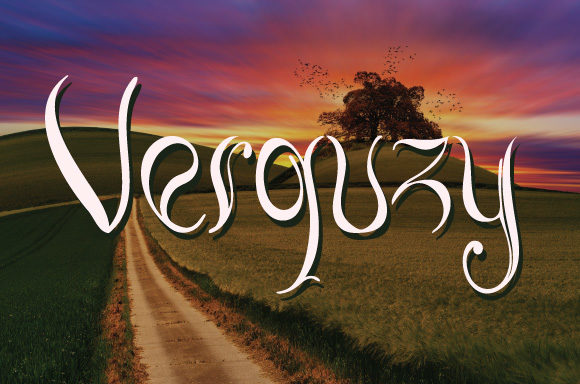
Prepare to turn heads with Verquzy Font, the script font that exudes elegance and originality! Step into the realm of captivating designs and watch your creations bloom with Verquzy's graceful curves and enchanting swashes.
Crafted by the talented Dedi Art Studio, Verquzy is a masterpiece tailored for the art of logo design. Its enchanting essence breathes life into your branding, making every letter dance with a captivating allure. Be it a sophisticated logo or an inspiring quote, Verquzy empowers you to make a lasting impression.
Immerse yourself in the beauty of each stroke, where precision meets artistry. Verquzy's delicate touch adds a touch of magic to your designs, making them shine brighter than ever before. Let your imagination soar as you explore the endless possibilities that await.
With Verquzy at your fingertips, you hold the key to unlocking a world of captivating designs. Its versatility knows no bounds, inviting you to craft everything from timeless logos to heartfelt quotes. Embrace the power of Verquzy and watch your creations transform into works of art that speak volumes.
Don't settle for ordinary fonts when you can possess the extraordinary. Verquzy beckons you to embark on a journey of creativity, where your designs will captivate and inspire. Unleash the beauty within and let Verquzy guide you to typographic triumph!